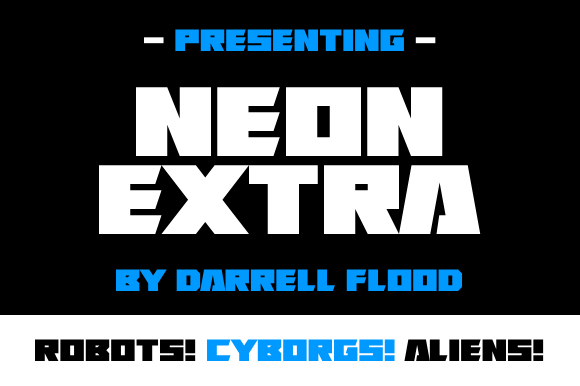
Introduction to Neon Extra Font
Imagine you’re in the middle of a creative project, and you’re struggling to find the perfect font to give it that extra oomph. You’ve scoured the internet for hours, but nothing seems to fit the vibe you’re going for. That’s when you stumble upon the Neon Extra Font – an edgy, ultra-bold font that’s sure to grab attention and leave a lasting impression.
As designers, we’re always on the lookout for high-quality design resources that can help us elevate our work. And let’s be honest, sometimes it’s the smallest details that make all the difference. That’s why the Neon Extra Font is such a valuable asset – its sharp, angular style is perfect for modern themes, and its transparent background makes it easy to customize and integrate into any design.
Key Features of Neon Extra Font
- Unique, high-quality design perfect for creative projects
- Transparent background, allowing for seamless integration into various designs
- High-resolution font, suitable for printing and digital displays at 300 DPI
- Designed to be easily scalable, making it perfect for use in various sizes and contexts
- Comes with a comprehensive character set, including a wide range of glyphs and symbols
Honest Review: Neon Extra Font
As a designer, I’m always on the lookout for unique and high-quality fonts to enhance my creative projects. The Neon Extra Font is one such find that caught my attention. I downloaded it for free, and I must say, it’s a fantastic addition to my design resource library.
- What works well: ✨ The font is incredibly versatile and can be used for a variety of creative projects, from neon-lit advertisements to futuristic UI designs.
- ✨ The transparent background feature allows for seamless integration with any background, giving designers complete creative control.
- ✨ The high-quality design ensures that the font looks crisp and sharp on any device, whether it’s a web application or a mobile app.
Overall, I’m quite impressed with the Neon Extra Font. It’s a great addition to any designer’s toolkit, and I would highly recommend it for any creative project that requires a bold, eye-catching font. Just be aware of the potential limitations, and you’ll be all set to create something truly unique and captivating.
High-Quality Results with Transparent Background
To get the most out of the Neon Extra Font, use it with a transparent background to create eye-catching graphics and designs. This will allow your text to stand out against any background, making it perfect for creative projects.
The Neon Extra Font is ideal for a variety of creative projects, including logo design, social media graphics, and advertising materials. Its high-quality design and transparent background make it a popular choice among designers.
Can I use the Neon Extra Font with a transparent background?
Yes, the Neon Extra Font is designed to be used with a transparent background. The font has a transparent background, making it perfect for designs that require a high level of customization and flexibility. You can use the font with a transparent background in graphic design software like Adobe Illustrator, Photoshop, or InDesign.